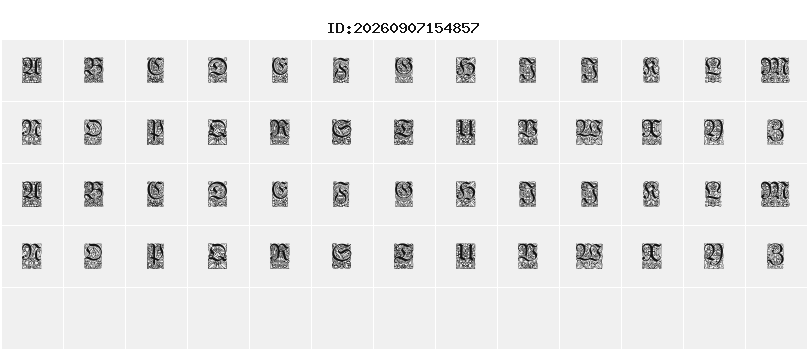
Unger-Fraktur Zierbuchstaben Preview
• Font Name: Unger-Fraktur Zierbuchstaben
• Full Font Name: Unger-Fraktur Zierbuchstaben
• Designer: Dieter Steffmann
• Description: Zierbuchstaben zur Unger-Fraktur, geschaffen von Julius Nitsche, 1908. Digitalisiert durch Dieter Steffmann, Kreuztal.
About Unger-Fraktur Zierbuchstaben.ttf